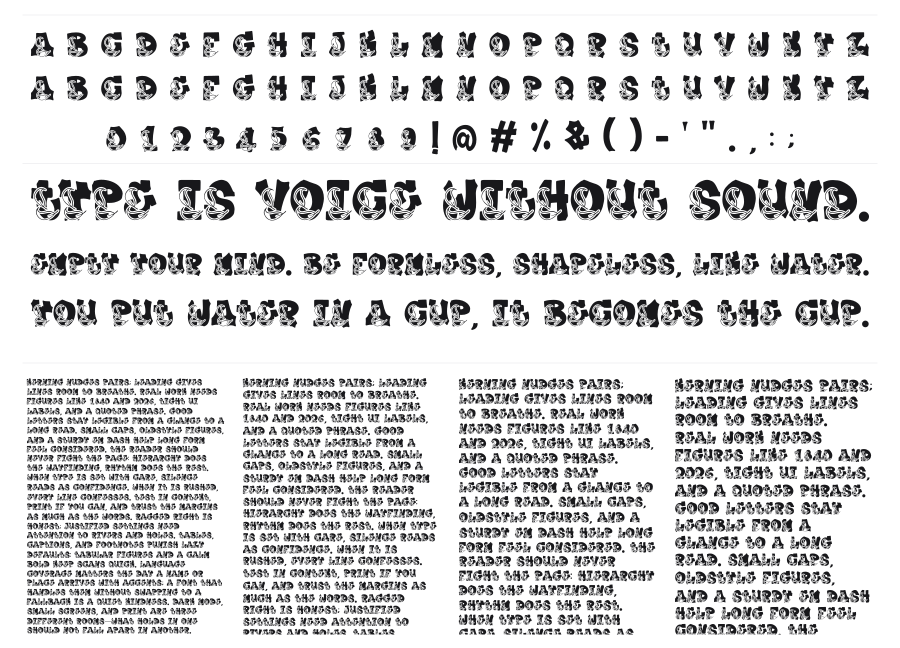
Plump Autumn
Plump Autumn is a bold decorative display font where each letter is wrapped in curling vines, leaves, and harvest motifs. The chunky, rounded forms carry a folk-art energy that feels equally at home on a Halloween poster or a farmers market label. It's a high-personality font that works at large sizes where all the organic detail can breathe.